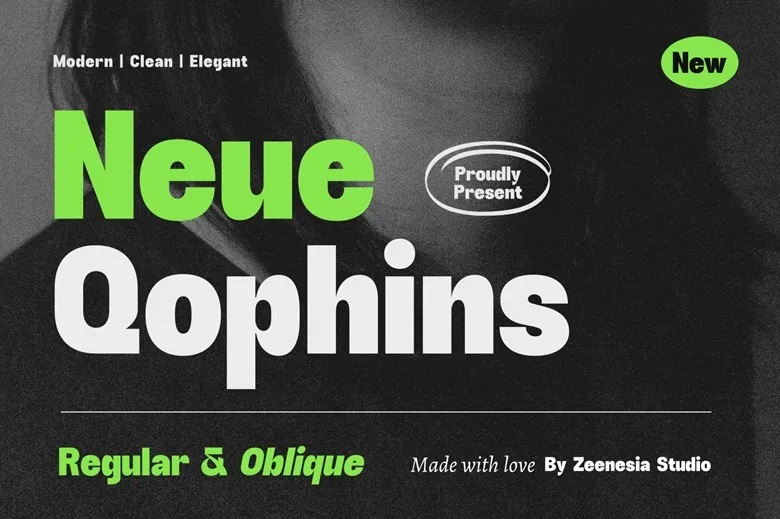
Neue Qophins Font
Neue Qophins is a creative and office sans-serif font that was designed to provide a more modern and more assertive look than many other fonts. Thanks to its clear and strong design in the Bold weight, with the Regular and Oblique styles, Neue Qophins can be used in branding projects, as well as in print media projects. This typeface has no elaborate edges or sharp ends which gives it a corporate look and feel without loosing its individuality.
The Bold weight cuts through the noise and is ideal for headlines and title, hence the inclusion of the Regular variety which makes for easy reading of text body. The Oblique style accentuates the letter and its shape by making a dynamic touch and therefore is suitable for lending the touch of elegance and stress.
Neue Qophins Sans Serif Font